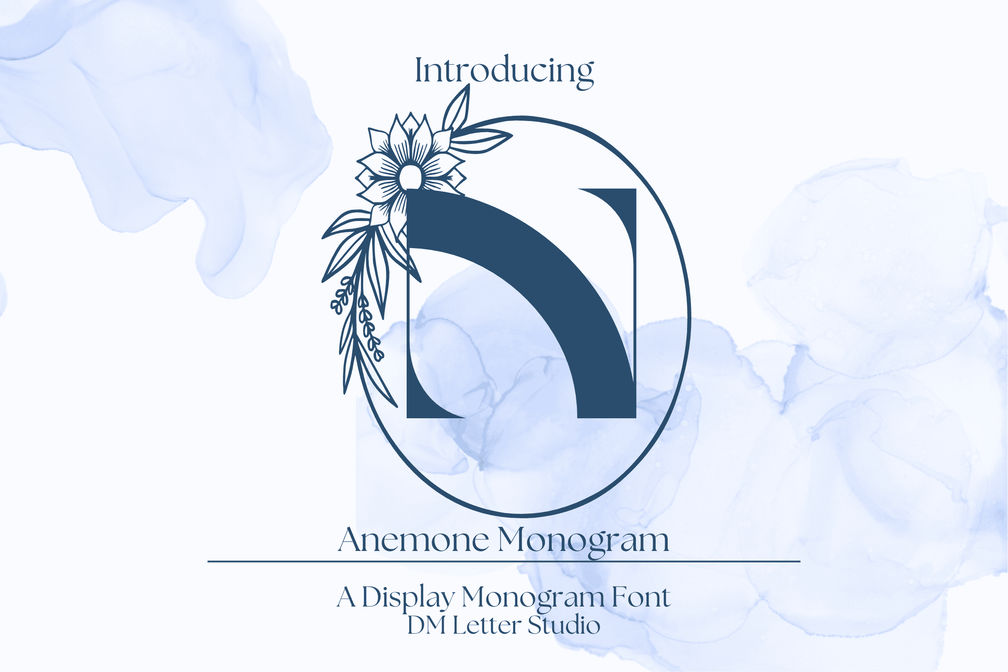
Anemone Monogram
Anemone Monogram – Bold Floral Monogram Font
Anemone Monogram is a beautifully bold monogram font inspired by the natural elegance of anemone flowers. Each letter is adorned with detailed floral elements, blending sophistication and creativity in a classic serif structure. Ideal for wedding stationery, personalized gifts, logo design, branding, and seasonal crafts, this monogram font brings a romantic and organic touch to any project.
• Floral-Infused Monogram Letters: Bold serif characters paired with intricately drawn anemone flower motifs.
• Timeless Botanical Charm: A perfect balance of structure and softness, great for vintage or elegant designs.
• Ready for Personalization: Designed for single-letter use in monograms, initials, labels, and branding.
• High-Quality Detailing: Clean, decorative designs suitable for both print and digital platforms.